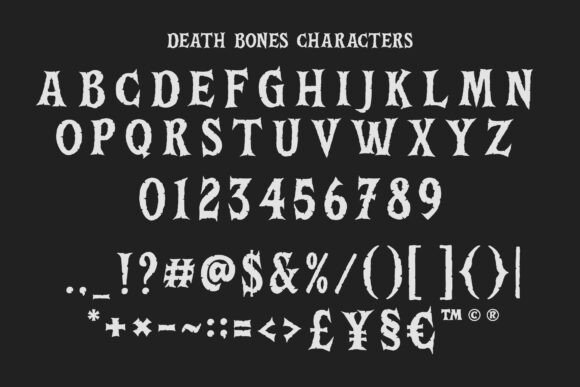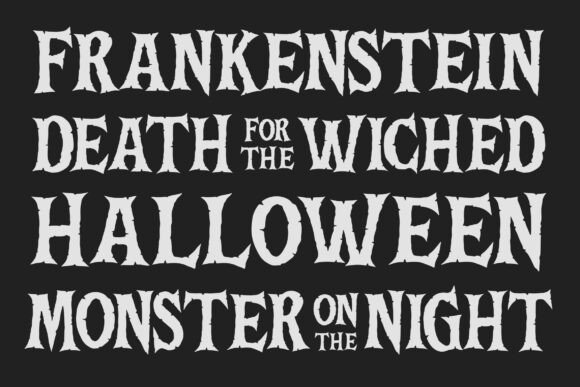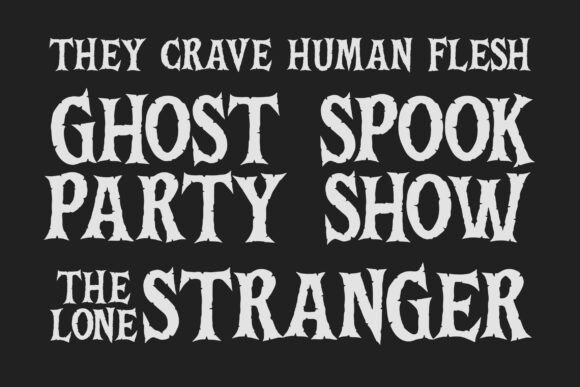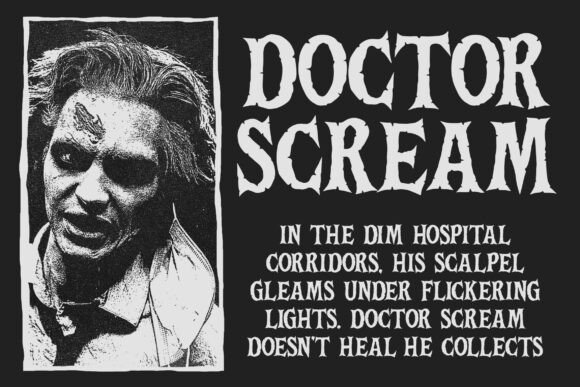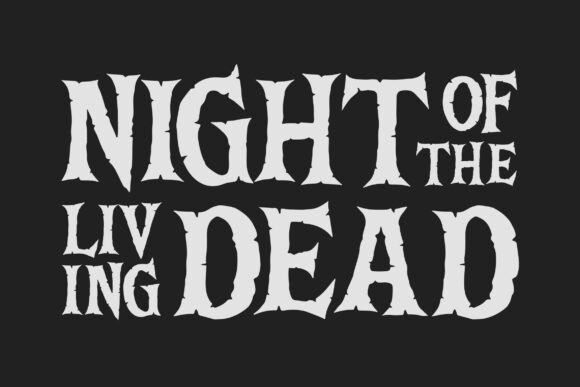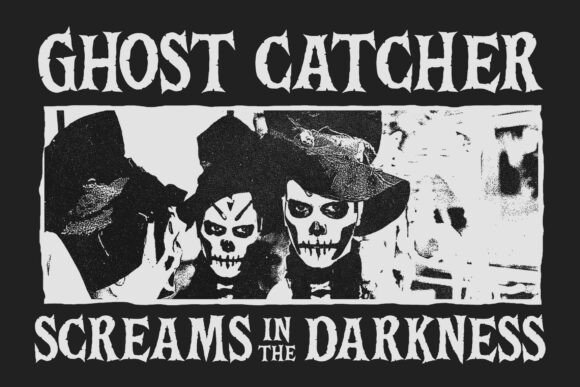
Introduction to Death Bones Font
Imagine you’re brainstorming ideas for a new project, and suddenly, the perfect font pops into your mind. It’s a game-changer, elevating your design from good to great. This is what happens when you discover the Death Bones Font – a beautiful, bouncy serif font that’s perfect for any professional project branding.
Designed to make a statement, Death Bones Font is a high-quality design resource that’s available in both OTF and TTF files. Its unique, playful style is ideal for logotypes, watermarks, posters, branding, promotions, and product packaging. Whether you’re working on a creative project or need a font for a client, Death Bones Font is sure to impress. With its transparent background and free download option, you can experiment with this versatile font without any restrictions.
- Unique Gothic-inspired design with a dark, edgy feel, making it perfect for creative projects and designs that require a bold statement.
- The font includes a range of characters, including uppercase and lowercase letters, numbers, and punctuation marks, making it suitable for a variety of design projects.
- Perfect for use in graphic design, typography, and other creative projects that require a bold, gothic-inspired font.
Honest Review: Death Bones Font
I recently came across the Death Bones Font and was excited to give it a try in my latest creative project. This font is a great addition to any design resource, offering a unique and edgy vibe that’s perfect for making a statement.
- Unique and edgy design that adds a touch of personality to any project
- High-quality font that’s perfect for professional and creative projects
One limitation I noticed is that the font may not be suitable for projects that require a more subtle or elegant look. It’s definitely a bold font, so use it sparingly!
Overall, I’m really impressed with the Death Bones Font. It’s a great addition to any design collection and is sure to add some excitement to your next creative project. ⚠️ Just be mindful of the font’s boldness and use it when it’s called for.
Use the Death Bones Font on a transparent background to create a haunting effect. Experiment with different font sizes and colors to achieve the desired spooky look.
The Death Bones Font is commonly used in Halloween-themed designs, horror movies, and spooky gaming projects. It’s also suitable for creating unique and creative titles, headings, and quotes.